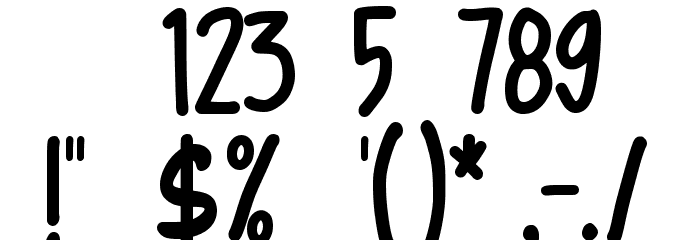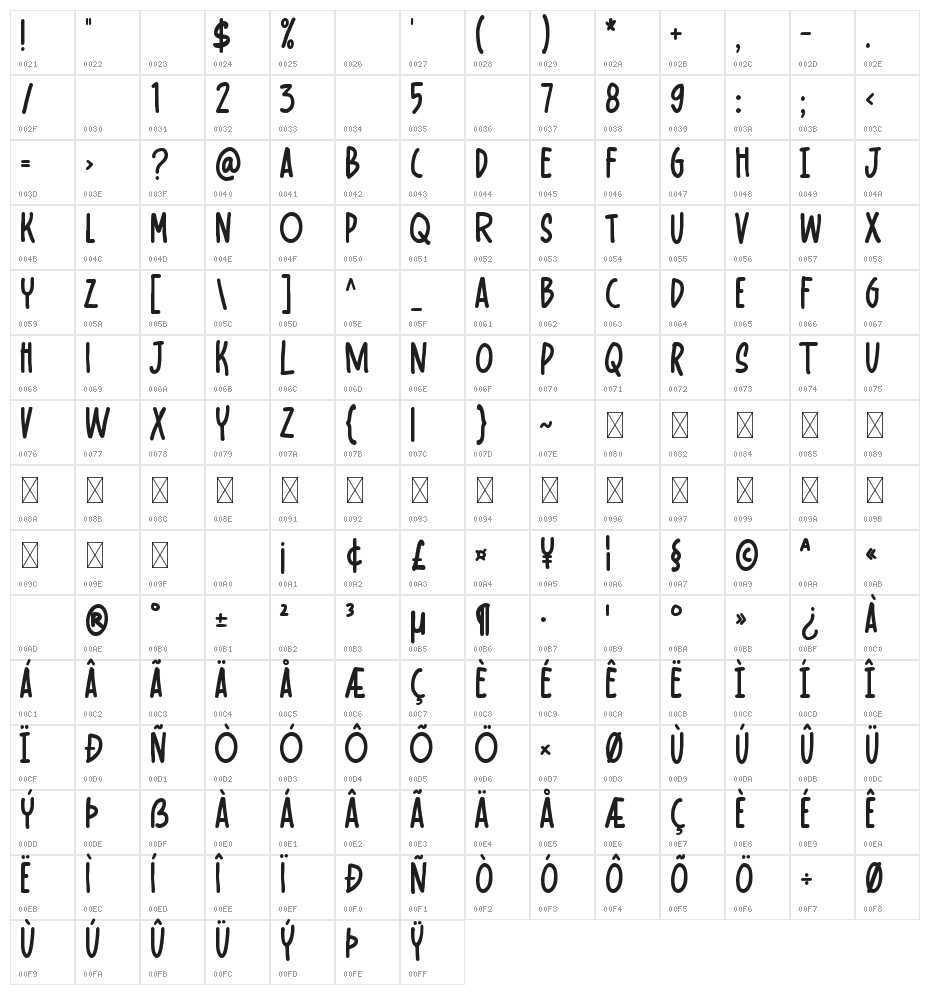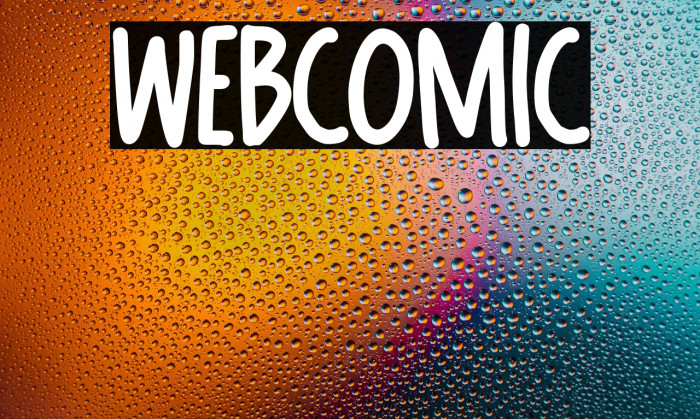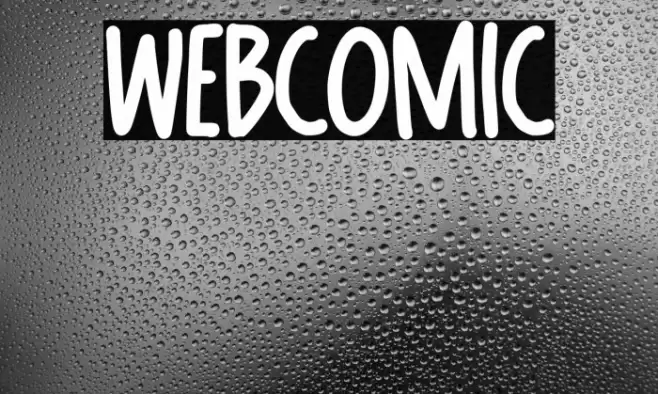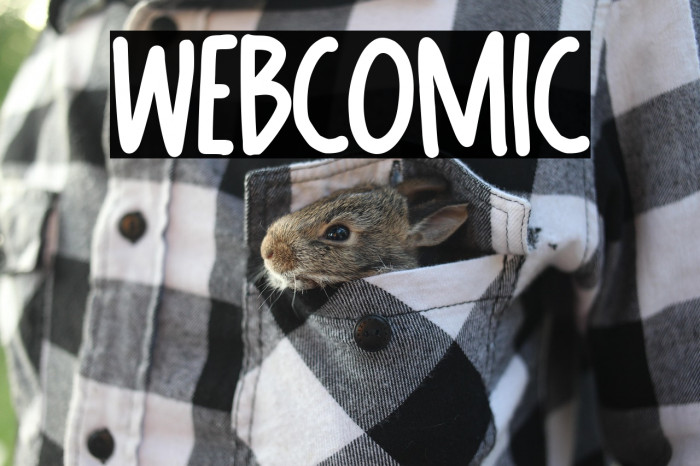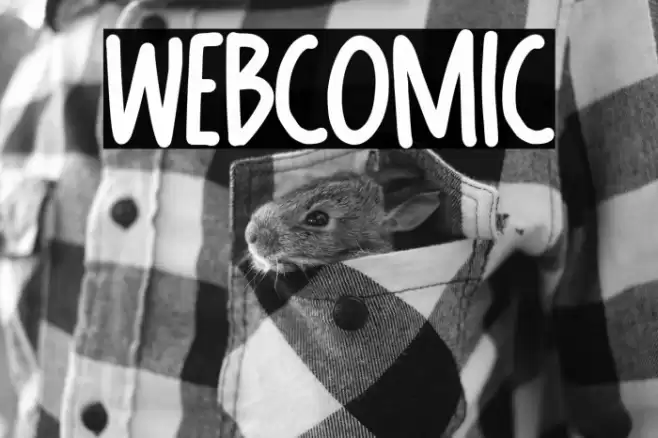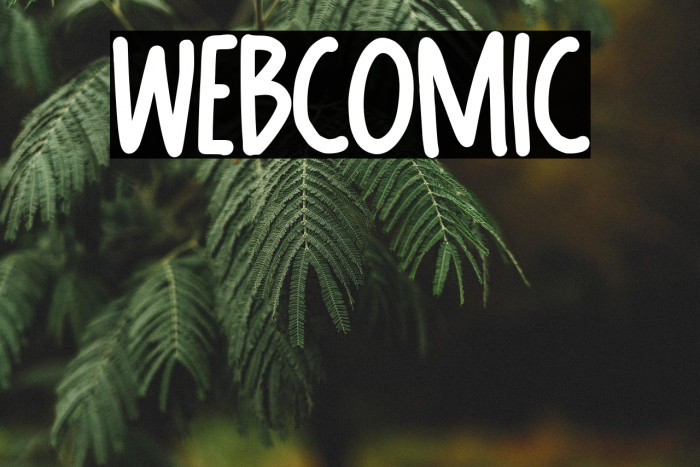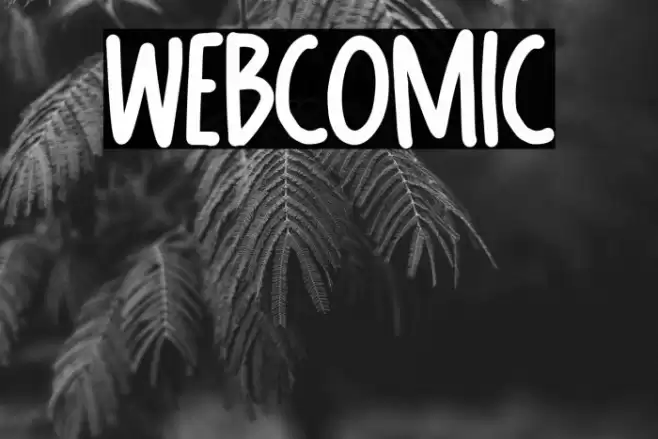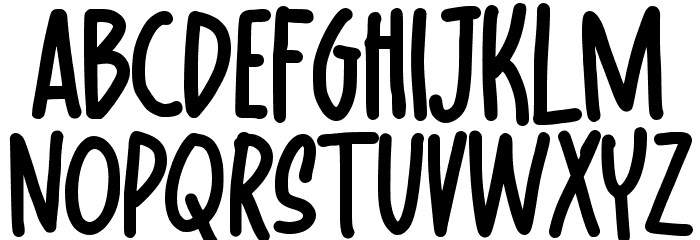
Webcomic Font
Webcomic Description
This font features a playful and informal style, reminiscent of hand-drawn lettering often found in comic books. The characters are bold and slightly irregular, giving them a whimsical and approachable feel. The uppercase and lowercase letters maintain a consistent height, contributing to a cohesive look. The numbers and special characters are designed with the same playful aesthetic, ensuring uniformity across all elements. The strokes are thick and rounded, enhancing the font's friendly and casual appearance. This style is perfect for projects that require a touch of humor and creativity.